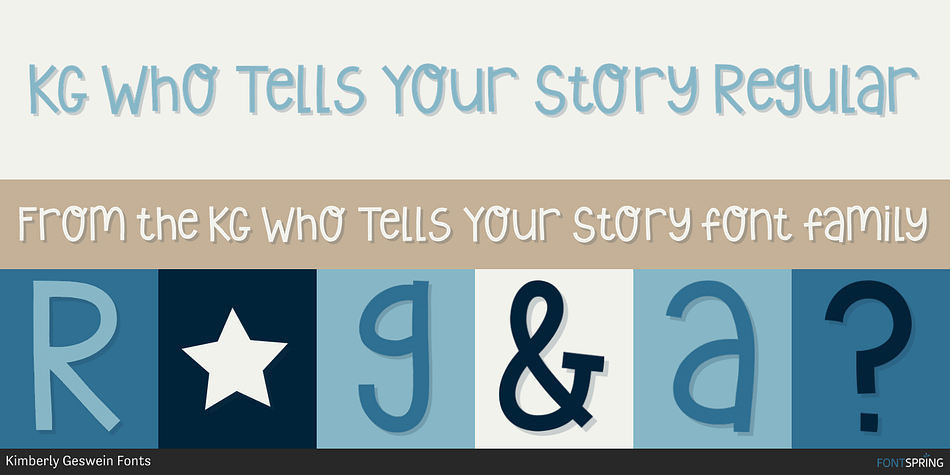
KG Who Tells Your Story Regular
Designed by Kimberly Geswein, KG Who Tells Your Story is a hand drawn and kids font published by Kimberly Geswein Fonts.
I love Hamilton.  It’s not only my current favorite musical, but it is how I got my kids super interested in history.  They can quote every lyric from the soundtrack and can tell you all about the founding fathers now.  Thank you Lin-Manual Miranda for making us appreciate a little more history!
At first glance, this whimsical font of unicase letters bouncing around might not make sense for a font inspired by one of America’s founding fathers.  But I think it will work well for scrapbooking and that’s how we tell our stories now.  It’s how we capture the history of us so future generations can get glimpses of our story and our life.